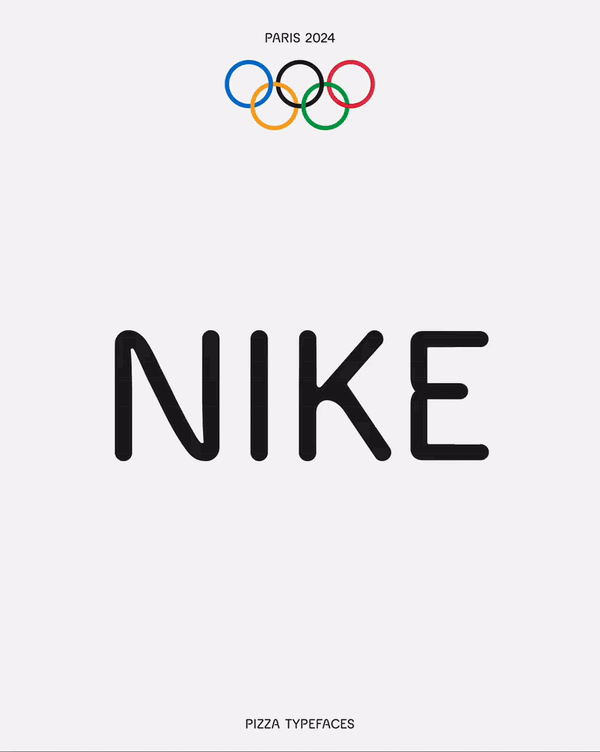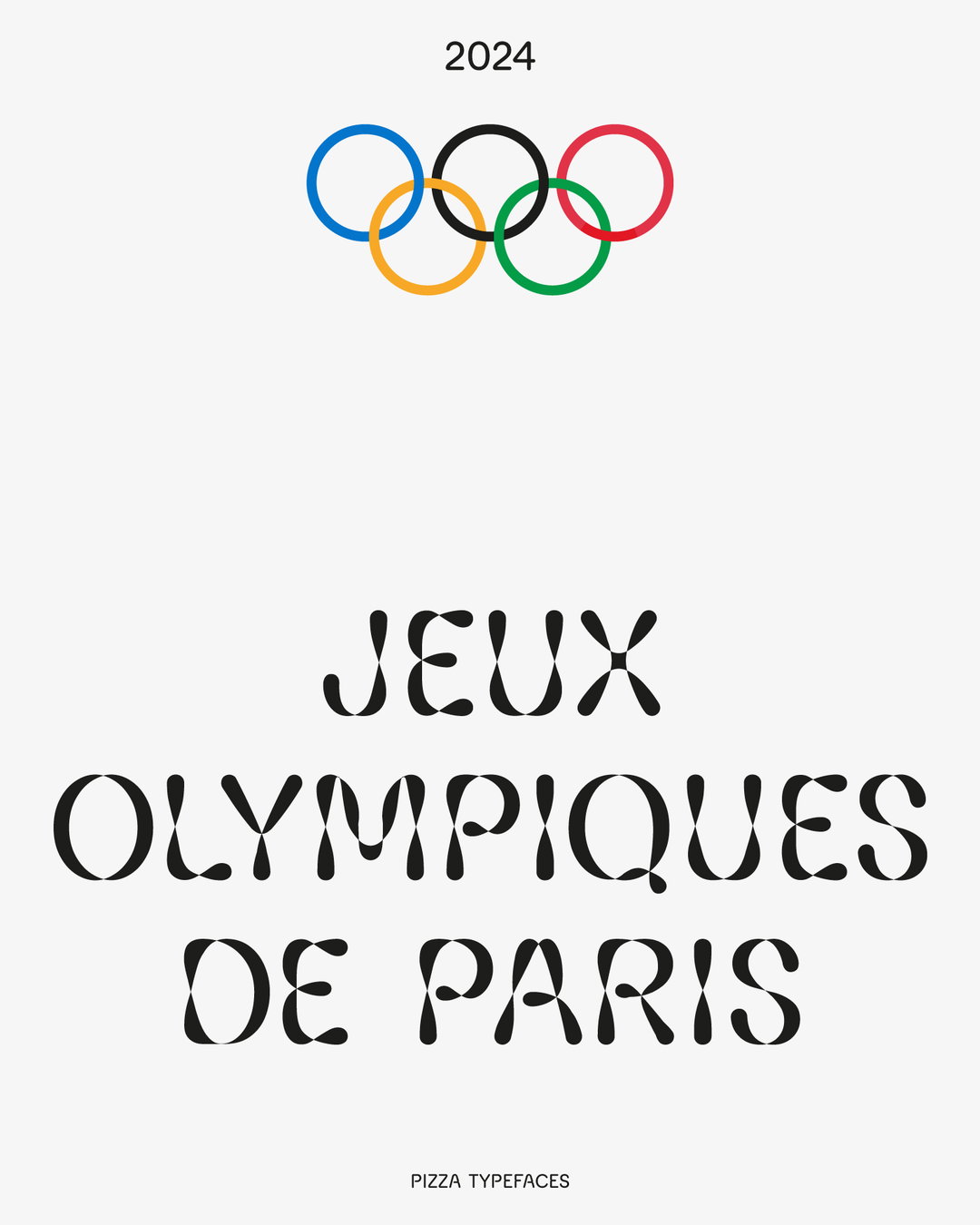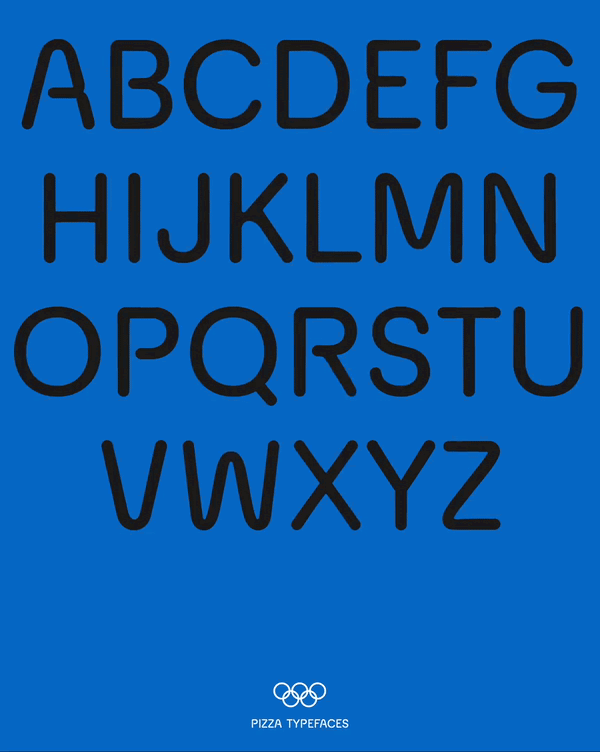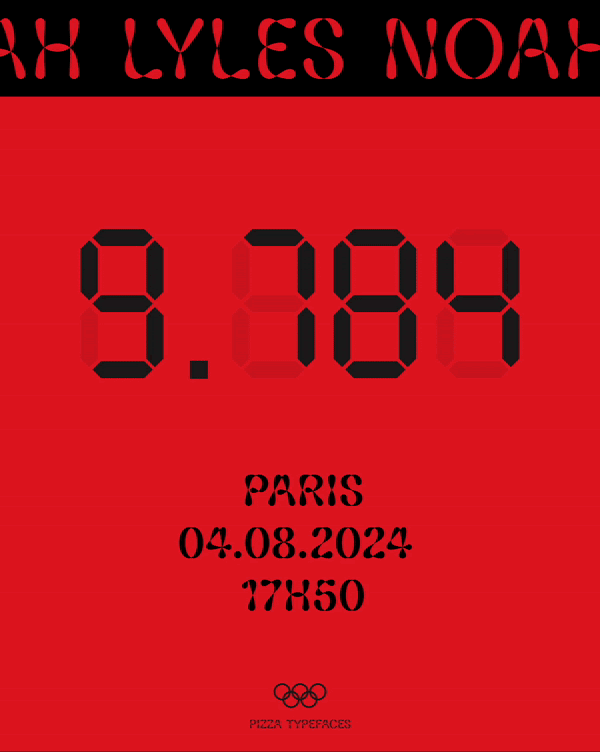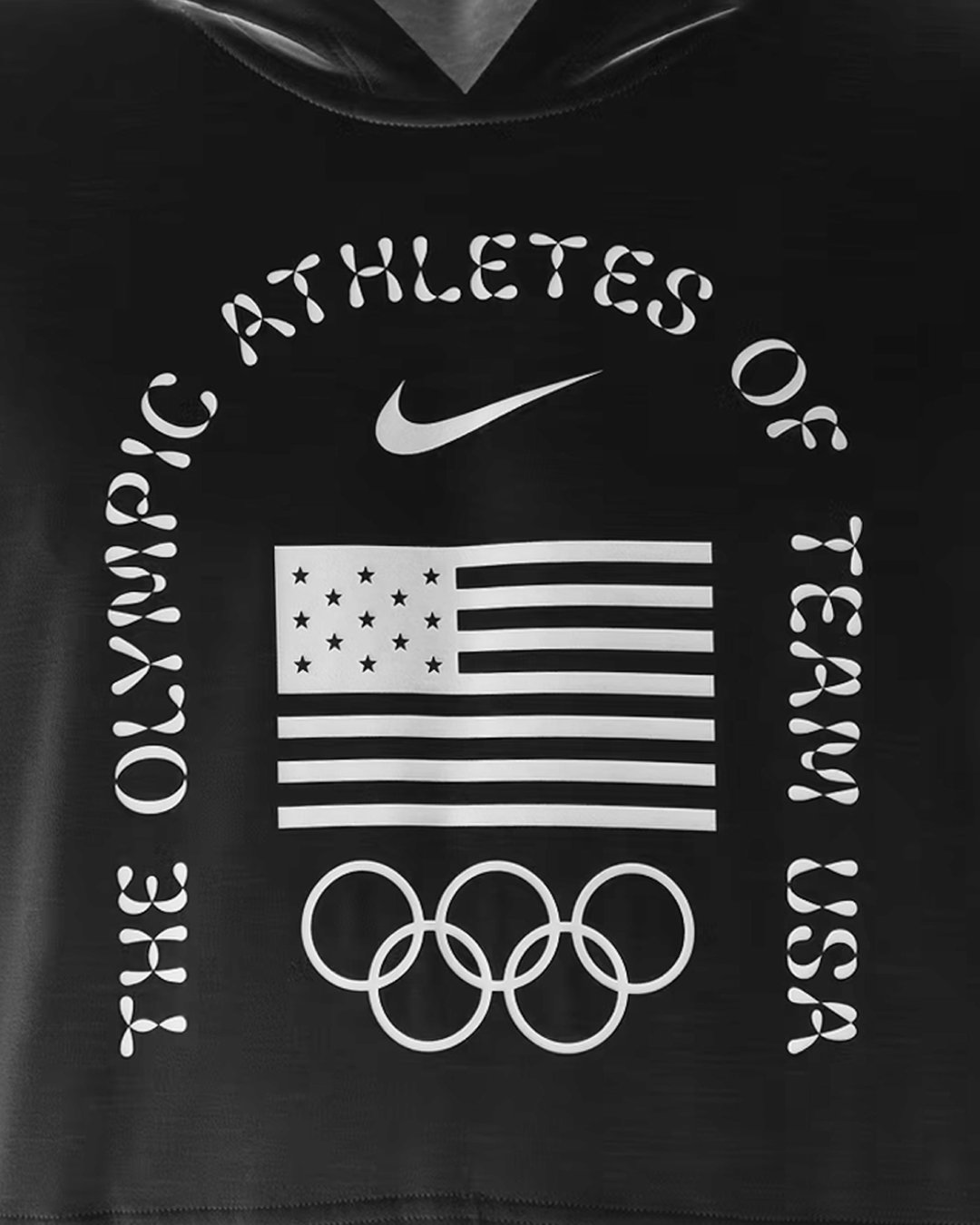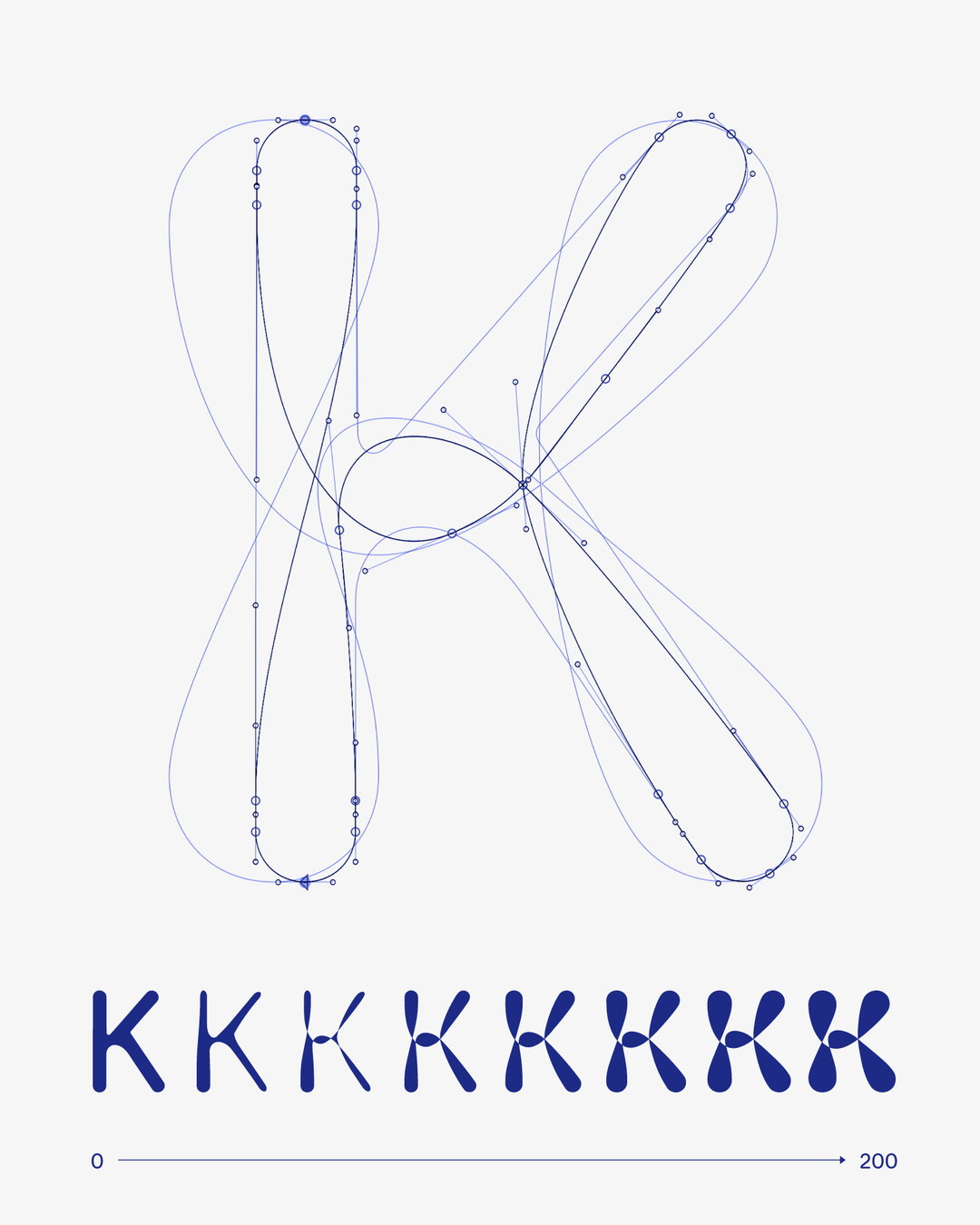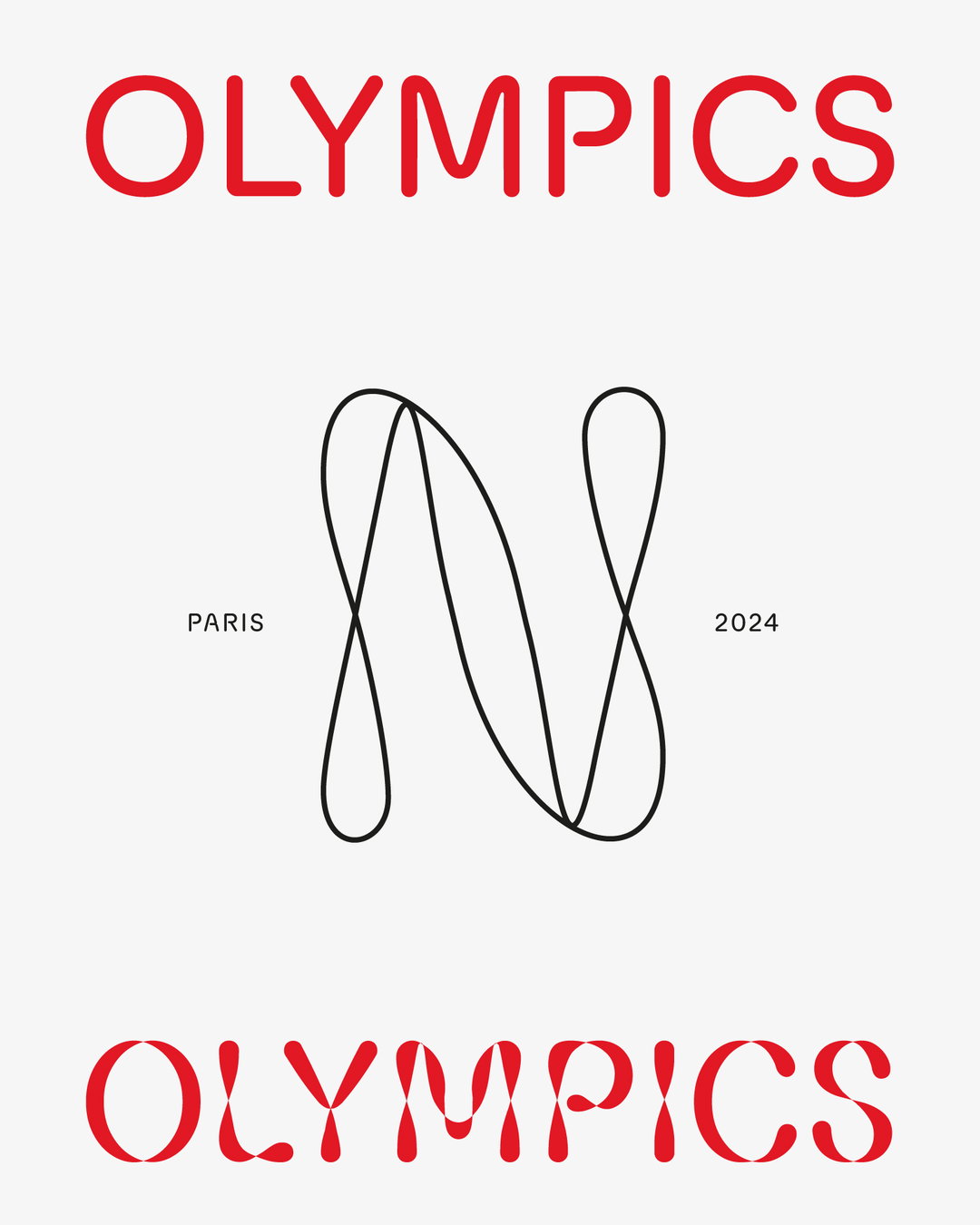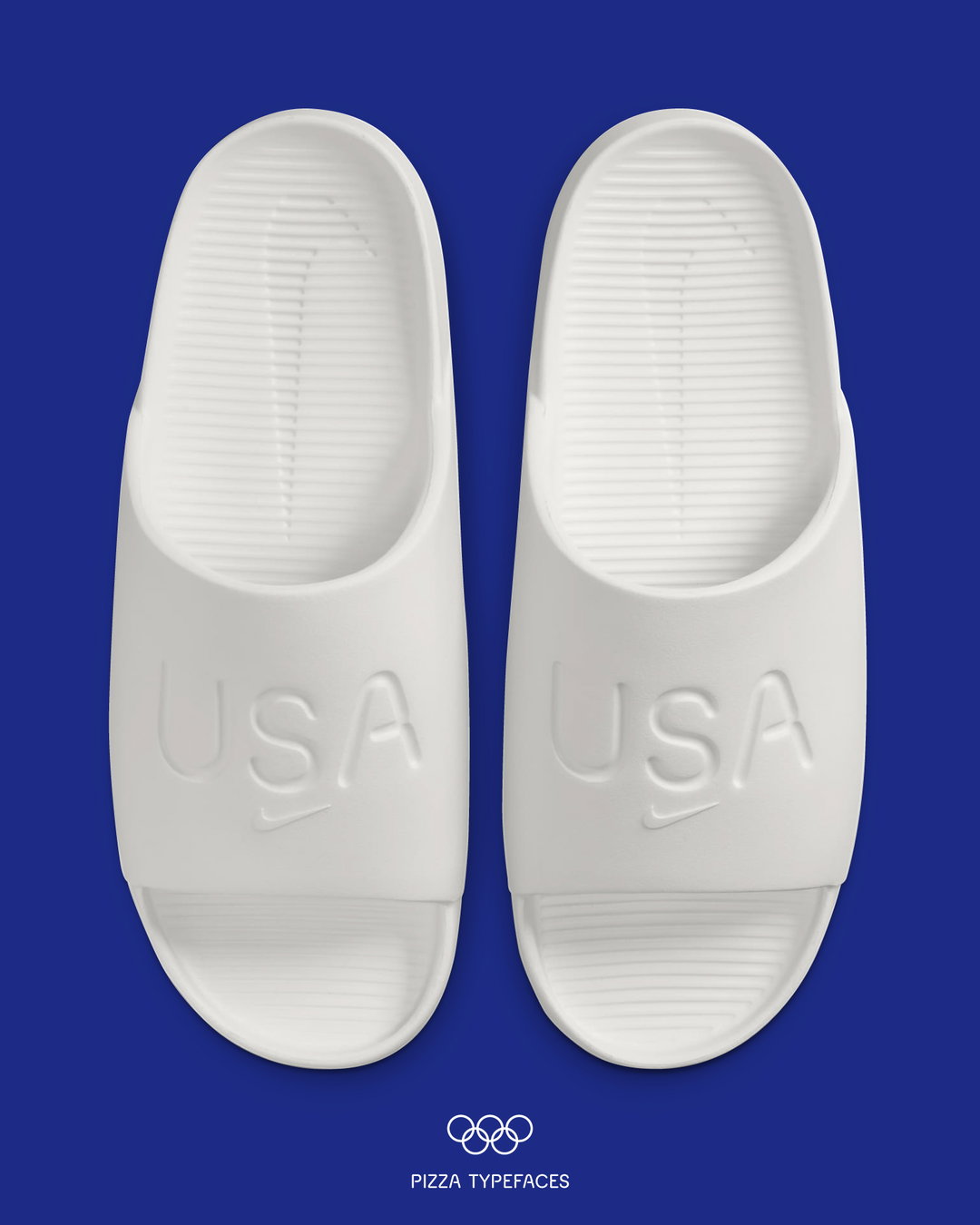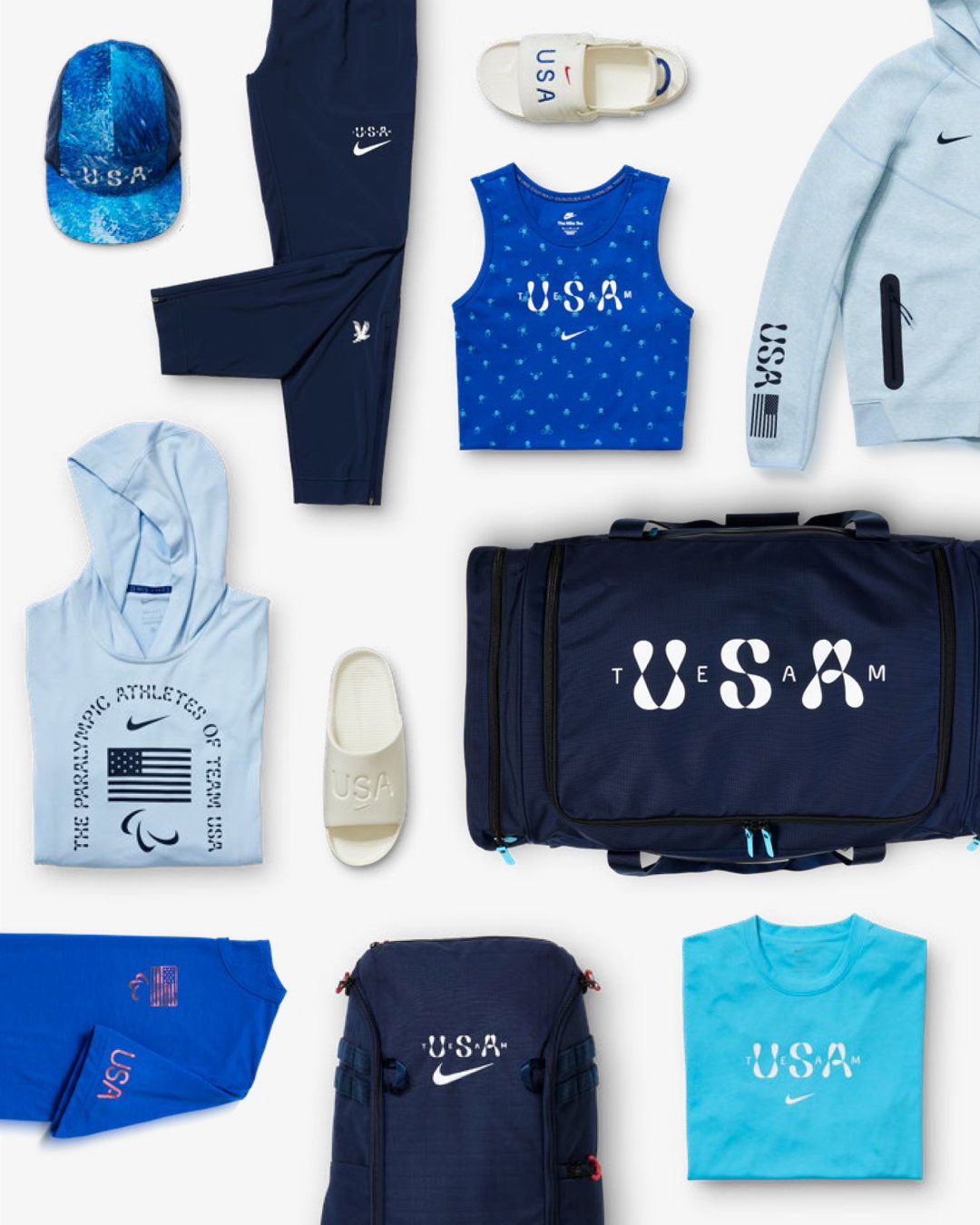
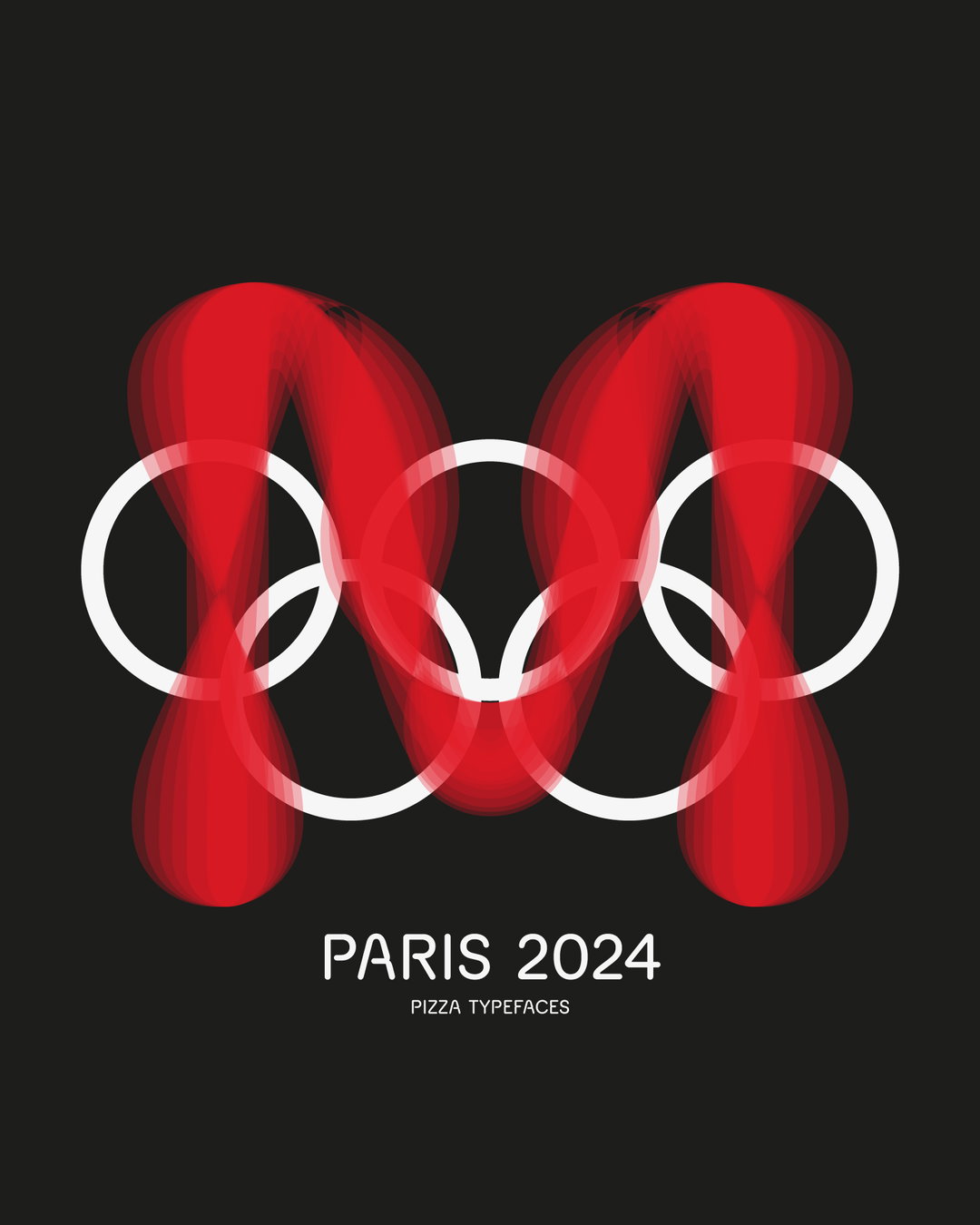
Pizza Typefaces’ Olympics 2024 font for Nike mimics the movement of athletes
Inspired by street art, Pizza Typefaces’ latest variable creation for Nike sits apart from typical fonts found in sports branding.
When Nike approached the French type design studio Pizza Typefaces for a new typeface during the Olympics 2024, the brief was clear: they wanted something different. It’s no wonder they chose Adrien Midzic and Luc Borho’s foundry; their fonts brim with customisable fun and a refined (yet juvenile) quality. “Nike’s art directors were very specific; they didn’t want the usual bold sports fonts or anything tied to French clichés,” says co-founder Adrien Midzic. “They wanted a font that, like the Olympics, could unite people, suggest movement, and evoke the pleasure we experience through sport.”
Interestingly, continues Adrien, Nike were very “receptive” to the foundry’s love of graffiti. This openness led Pizza Typefaces on a unique design journey, one inspired by the world of street art. “We started by developing the more complex version, which illustrates the idea of movement through its generous curves. For inspiration, we turned to the ‘throw-up’ graffiti style,” says Adrien. This particular style involves drawing letters in a single, continuous stroke – much like the fluid, precise movements of an athlete.
The result is a typeface with a dual personality. On one hand, it needed to be highly legible for athlete jerseys, and on the other, it had to have enough character for merchandising. “Futura, an iconic font for the brand, served as a reference for its round letters, which subtly allude to the Olympic rings,” Adrien explains. But, designing a font that could suggest movement while remaining versatile was no easy feat. “The lines suggest the trajectory of an athlete’s movements, akin to a long-exposure photograph,” he says. “This visual language not only imparts a sense of motion to the letters but also echoes the idea of connection, much like the Olympic rings.”
Pizza Typefaces took the design a step further by creating a variable font, allowing for seamless transitions between the two versions. “The letter ends twist and the curves intersect to create the transition between the two states,” says Adrien. “This allows the font to be modified through a ‘movement’ slider.”
The font defies traditional categorisation: neither overtly ‘masculine’ nor ‘feminine’, not overly bold yet not too delicate. “It’s hard to say whether it’s more performance-oriented or pleasure-focused, or whether it belongs to one country more than another,” Adrien adds. This versatility makes the font stand out in comparison to the bold, angled typefaces typically seen in sports branding.
Although the font was created two years ago, it made its debut in Nike’s training and Olympics village products, worn by athletes off the field, track, or court. While it’s not yet been used in motion (as the designers had hoped) the coherence and sense movement that static versions bring to text compositions undeniable.